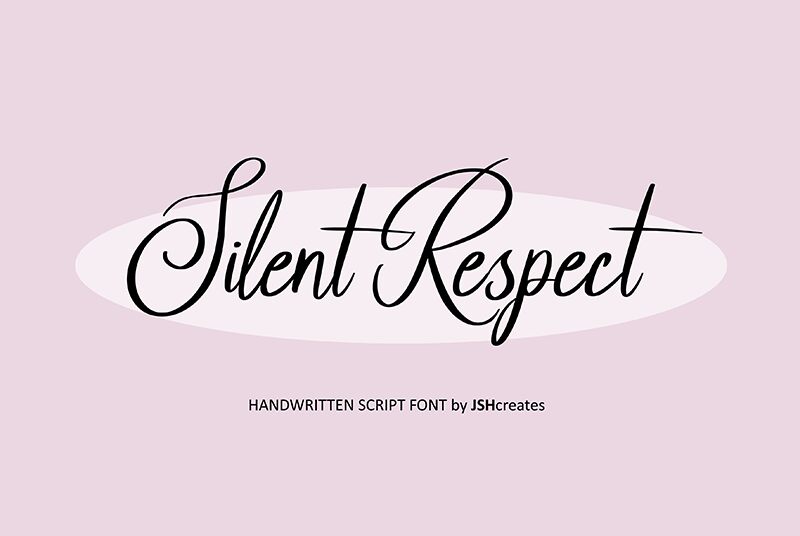
Silent Respect font is a handwritten light font brought to you by JSH creates. It’s elegant, sophisticated, modern, and suitable for a wide variety of your projects. The beautiful flowing stroke connects perfectly within this font to give the formal ambiance desired within a project. The graceful curves are eye-pleasing and welcoming.
Use the free handwritten lightweight masterpiece in your wedding invitations and cards. Wrap logos, packaging design, greeting cards, business cards, posters, quotes in an elegant manner. Integrate it also into social media posts that involve beauty products or decorations styles blogs and websites all while taking advantage of its elegance.